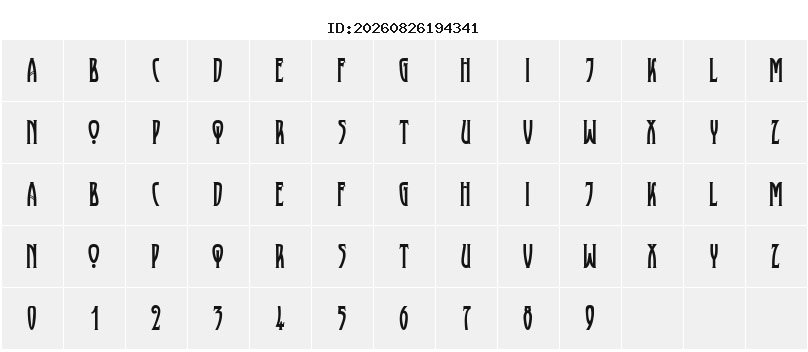
XAyax Preview
• Font Name: XAyax
• Designer: Peter Wiegel
About XAyax.ttf
XAyax.ttf is a modern, elegant sans-serif font designed for ultimate readability and visual harmony. Perfect for branding, headlines, web design, and print materials.